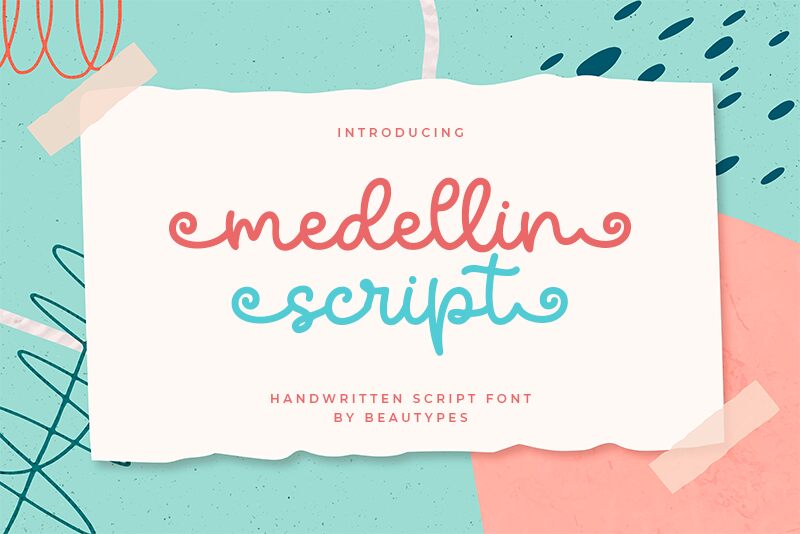
MedellinScript
Meet Medellin Script, the font that adds a touch of whimsy to any project. Designed by Beautypes, this semi-light typeface features a cute handwritten style that is perfect for playful branding, greeting cards, and invitations. The soft curves and flowing lines of Medellin Script create a friendly and approachable feel that is perfect for children's books, social media graphics, and more. Whether you're designing a logo for a bakery or creating party favors for a bridal shower, Medellin Script is the charming font you've been searching for.